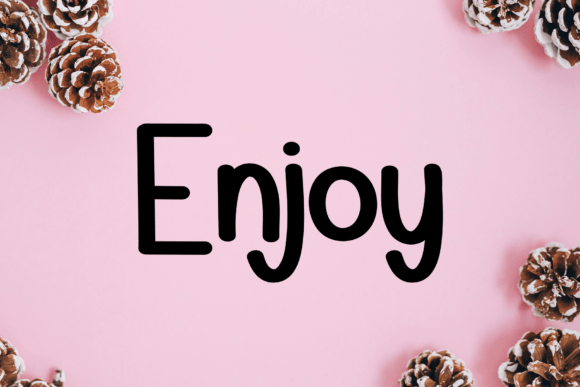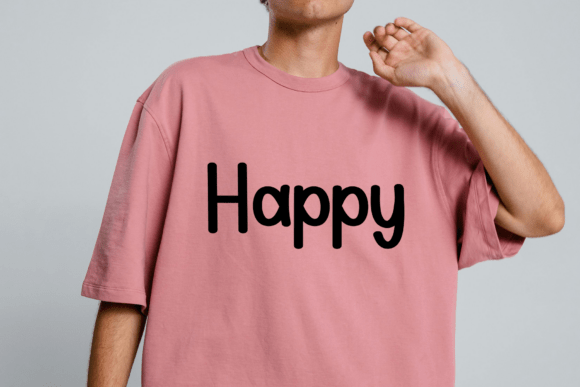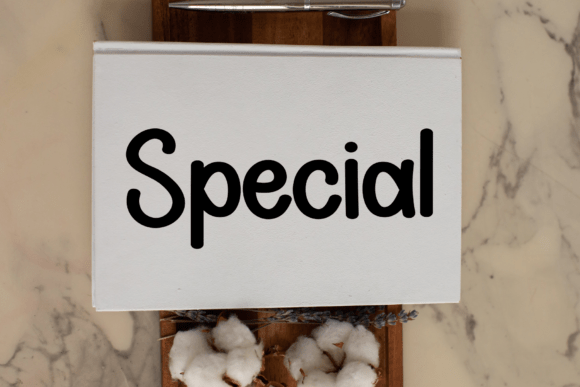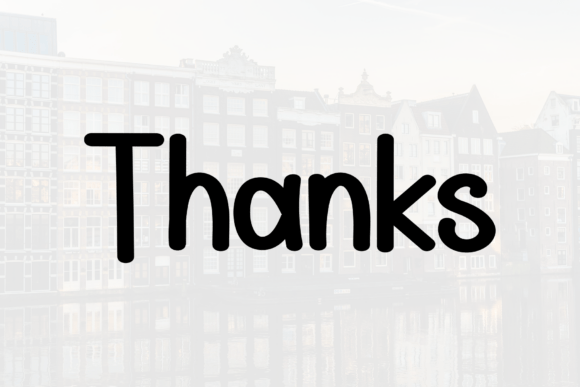
Inject a Dose of Whimsy with Delightful Font: The Ultimate Guide
Are you tired of using the same old fonts for your creative projects? Look no further than Delightful font, a display typeface that’s sure to inject a dose of whimsical personality into your designs. With its playful geometry and “bubble” aesthetics, Delightful font is perfect for brands that want to project joy and creativity.
What Makes Delightful Font So Unique?
Delightful font is characterized by its thick, consistent line weight and unexpected design twists, making it a true standout in the world of typography. One of the most notable features of this font is its unique circular motifs and rounded terminals, which give it an incredibly friendly and approachable feel. The iconic “loop-de-loop” on its lowercase ‘g’ is a perfect example of the font’s playful personality.
The Perfect Font for Youthful Branding
The bold, tactile nature of Delightful font makes it an unbeatable choice for impact-driven, youthful branding. Whether you’re working on a children’s toy packaging project, creating flyers for a creative workshop, or designing vibrant YouTube thumbnails, Delightful font is sure to grab attention and leave a lasting impression.
Design Ideas to Get You Started
Delightful font works exceptionally well in high-contrast color palettes, such as black text on bright yellow or neon gradients. Here are a few design ideas to get you started:
- Nursery Wall Decor: Use Delightful font to create adorable nursery wall decals or prints that are sure to delight little ones.
- Craft Shop Logos: Add a touch of whimsy to your craft shop logo with Delightful font, perfect for businesses that specialize in handmade or DIY products.
- DIY Blog Headers: Use Delightful font as a fun header for your DIY blog, adding a playful touch to your website or social media channels.
Why Delightful Font Remains a Top Choice
Because of its chunky structure, Delightful font remains a top choice for designers and crafters looking to add a playful touch to their projects. Its versatility and legibility make it perfect for a wide range of applications, from signage and packaging to digital graphics and more.
Tips for Using Delightful Font Effectively
To get the most out of Delightful font, here are a few tips to keep in mind:
- Experiment with Color: Delightful font works exceptionally well in high-contrast color palettes, so don’t be afraid to experiment with different colors and gradients.
- Mix and Match: Try pairing Delightful font with other fonts to create a unique and eye-catching combination.
- Keep it Simple: Don’t overcomplicate your design – Delightful font is perfect for simple, yet effective designs that pack a punch.
In conclusion, Delightful font is a versatile and playful typeface that’s perfect for designers and crafters looking to add a dose of whimsy to their creative projects. With its unique circular motifs, bold line weight, and unexpected design twists, Delightful font is sure to grab attention and leave a lasting impression. Whether you’re working on a children’s toy packaging project or designing a DIY blog header, Delightful font is the perfect choice for brands that want to project joy and creativity.